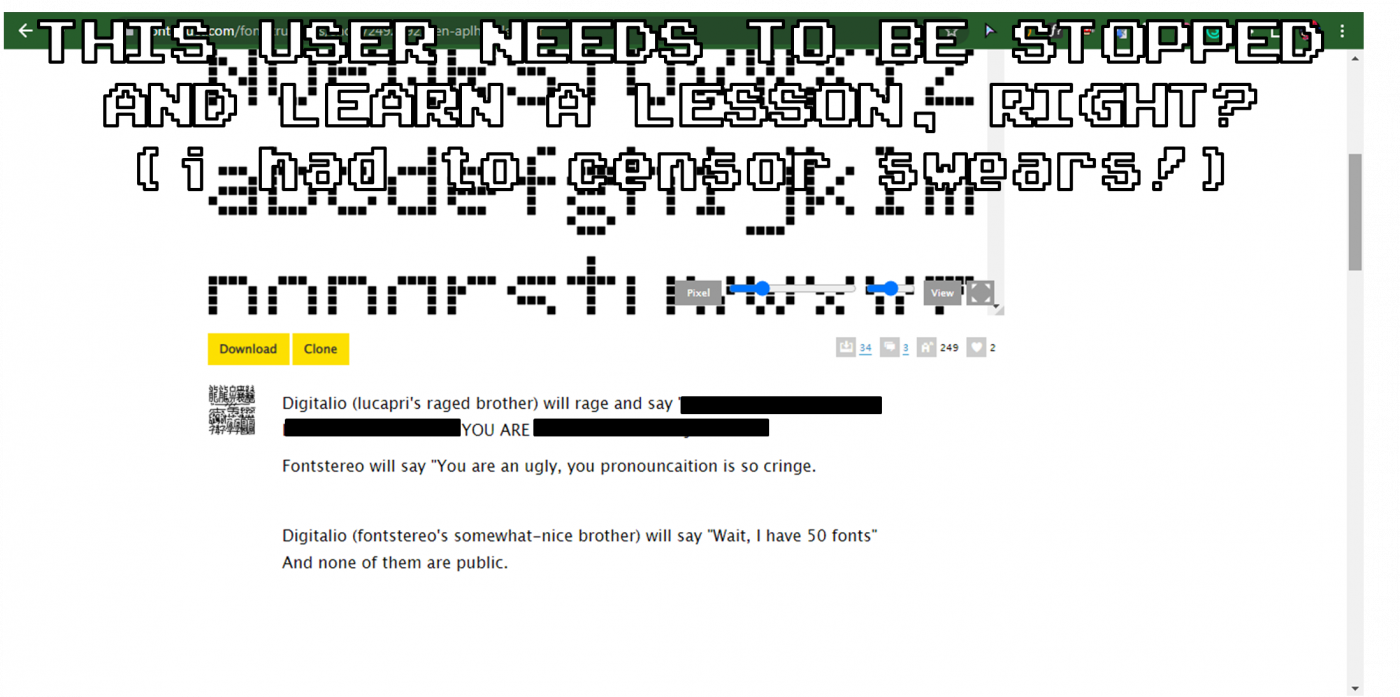
Use U+2031 and U+F8FF for faces.
This font aims to replicate the font used in HeatleyBros´ thumbnails, like the one in this video and the lowercase letters are based off Arcadepix.
Also, besides latin letters there's also cyrillic and (some) alts!
Some Languages:
English
Spanish
Portuguese
French
German
Italian
Russian
Mongol
Ukrainian
Bulgarian
Indonesian